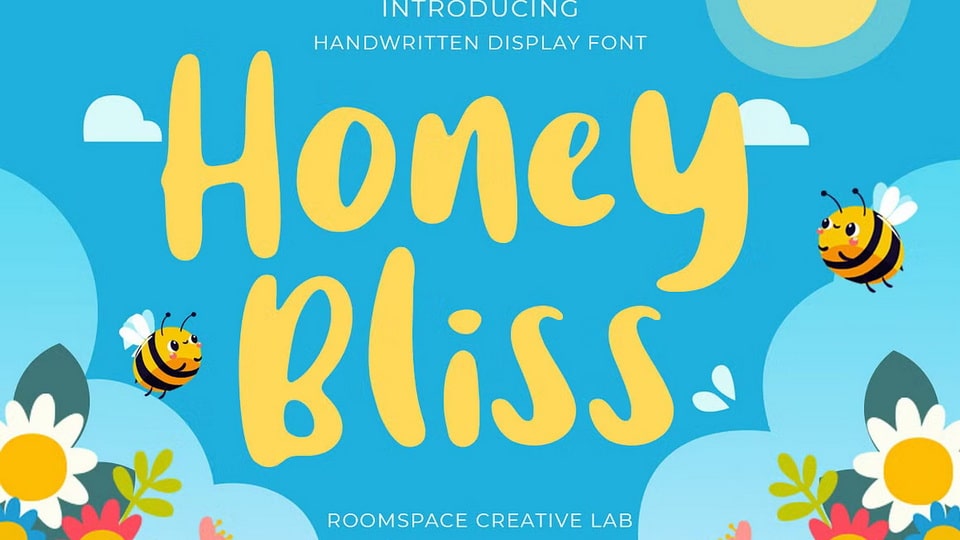
Download Honey Bliss font, a bold display typeface designed to bring warmth and charisma to your design. Its rounded, energetic letterforms make it an excellent choice for and projects.